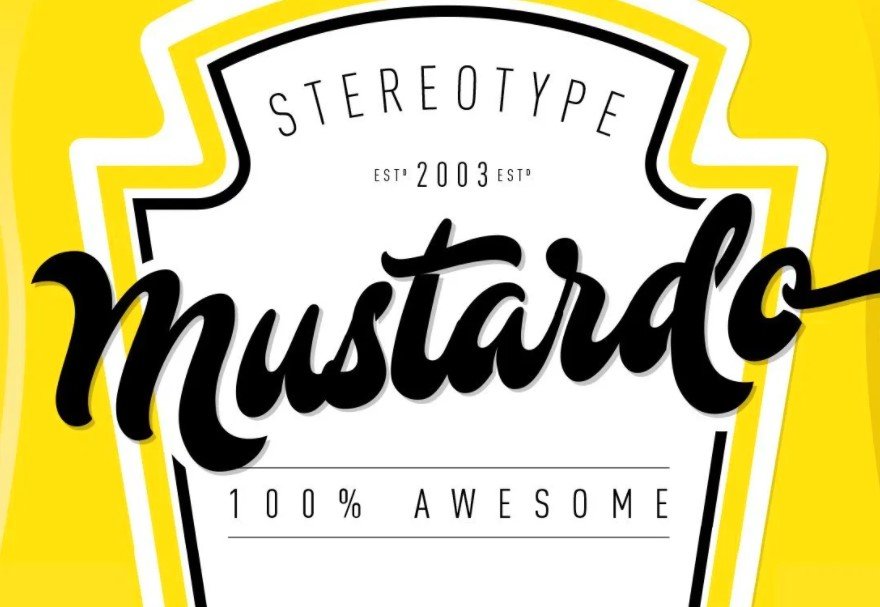
Basically, the texture of the font was designed with brush strokes and giving the font a handwritten touch. It contains solid bold swashes and sharp lines which has contextual ligatures that is similar to harley davidson font which can be use as pairing.
The font was designed by the popular font foundry that is a stereotype which provide us the clear scripted typeface for free.
View Of Mustardo Script Font
This is beautiful handwritten and most loving scripted typeface which is suitable for designing banners and posts. Also, it can be use for pairing with the combination of mermaid font and for printing purpose also.
There are so many ways to use this font, it can be use as text generator and also for pairing with lots of other fonts combinations. You can use the font in any type of below projects.
| Designer | Stereotype |
The Noble Notes is very close to the Mustardo Script Font.